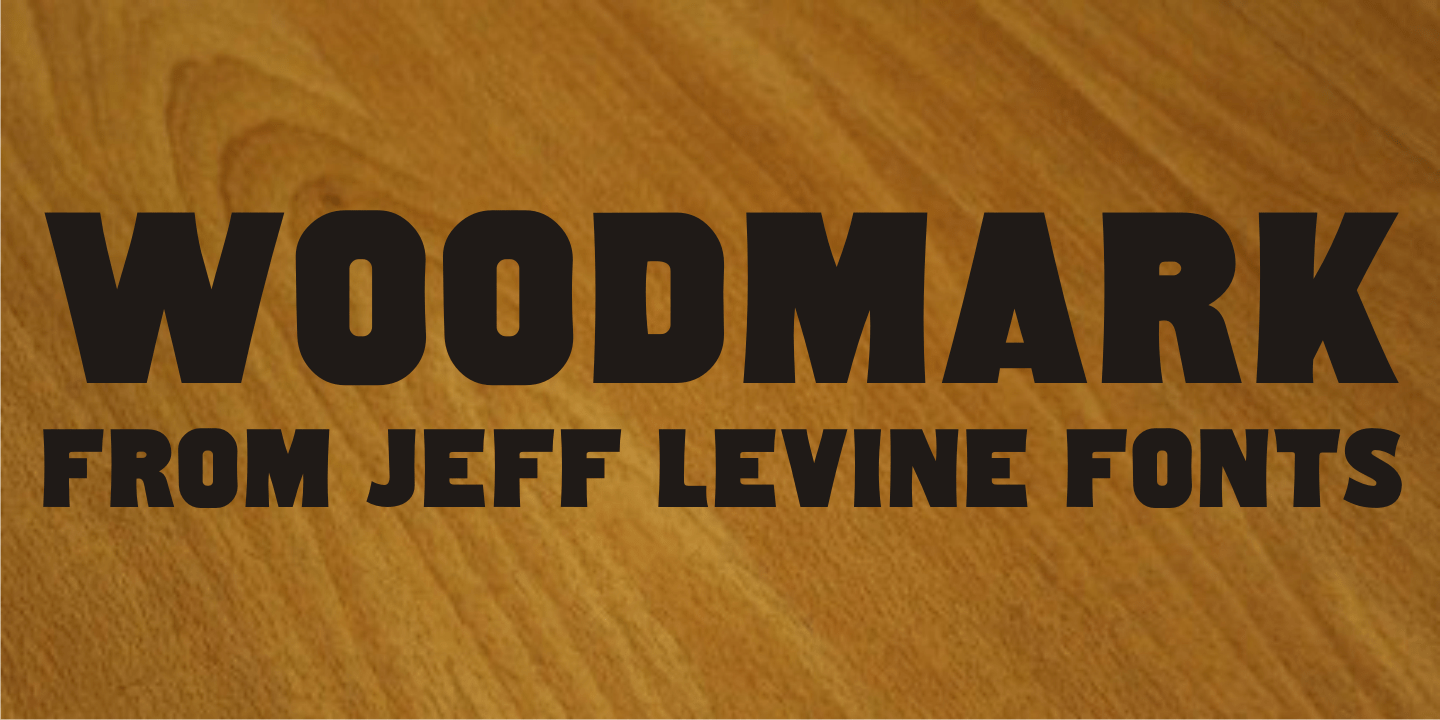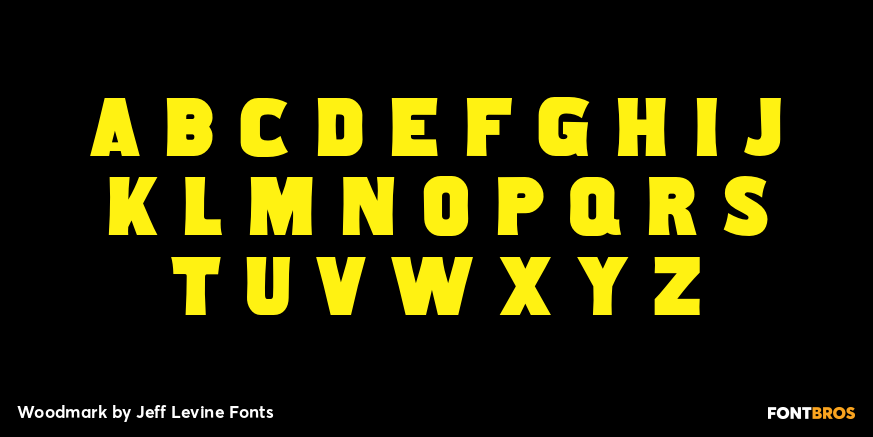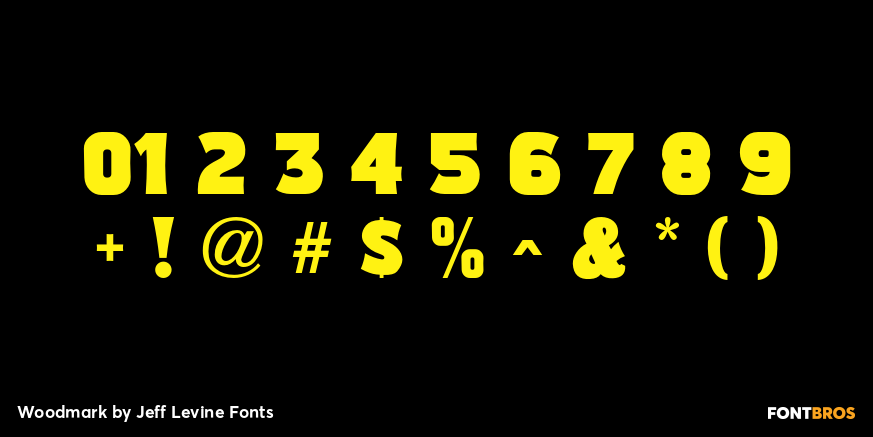
Woodmark
Woodmark JNL is a rough and somewhat irregular in letter form wood type based on some examples of William H. Page's 'New Process No. 507'.
The eccentricity of the letters is reminiscent of many of the 1800s wood type designs, and is perfect for a rustic look within any retro project.